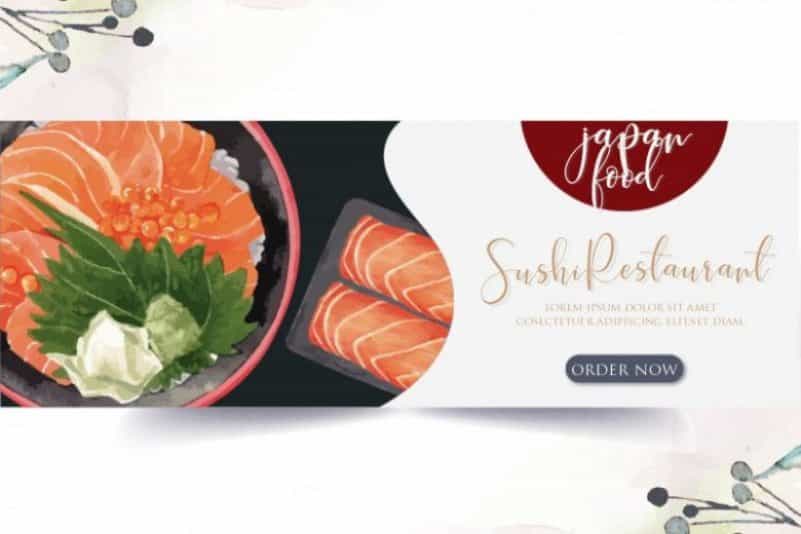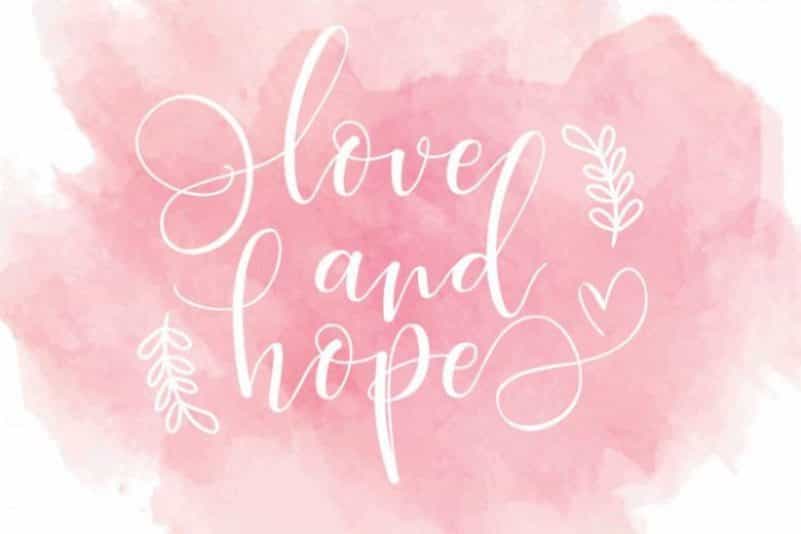
Hokie is a nice modern calligraphy font. It is the blending of the traditional calligraphy with what can be considered as the new age calligraphy. It gives a sophisticated and stylish touch in design. It was developed by Gilar Studio. This is an amazing, stunning and elegant calligraphy font that would transform any design work into a masterpiece.